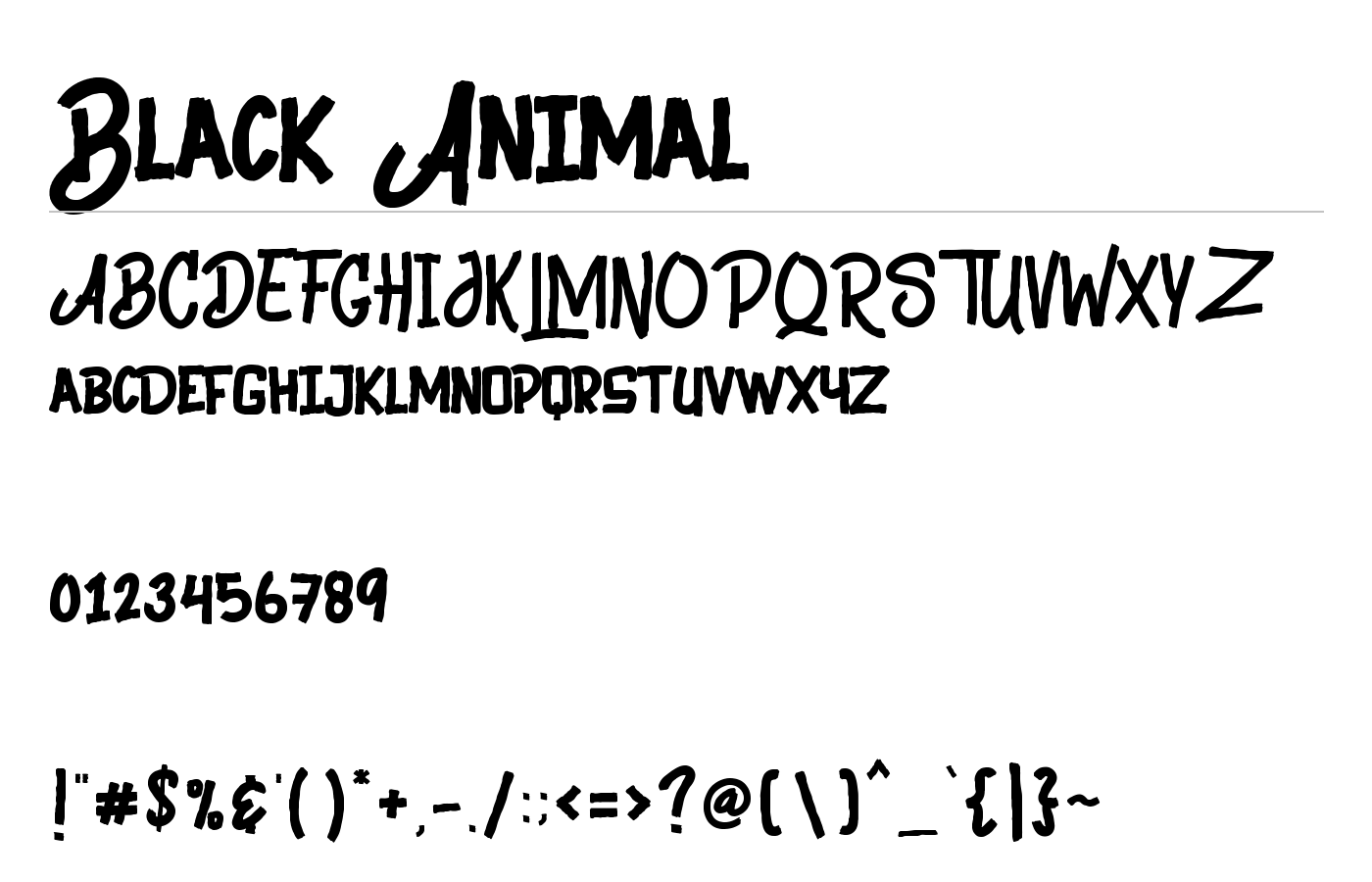
Black Animal is a bold, playful handwritten sans serif font with a casual and slightly rough texture that adds an organic, lively feel. Its uneven strokes and unique letter shapes make it perfect for creative, informal designs like posters, logos, and packaging where a fun, energetic personality is desired. This font works best in headlines or branding that aims to stand out with a distinctive, approachable style.
Black Animal Font
About Black Animal Font